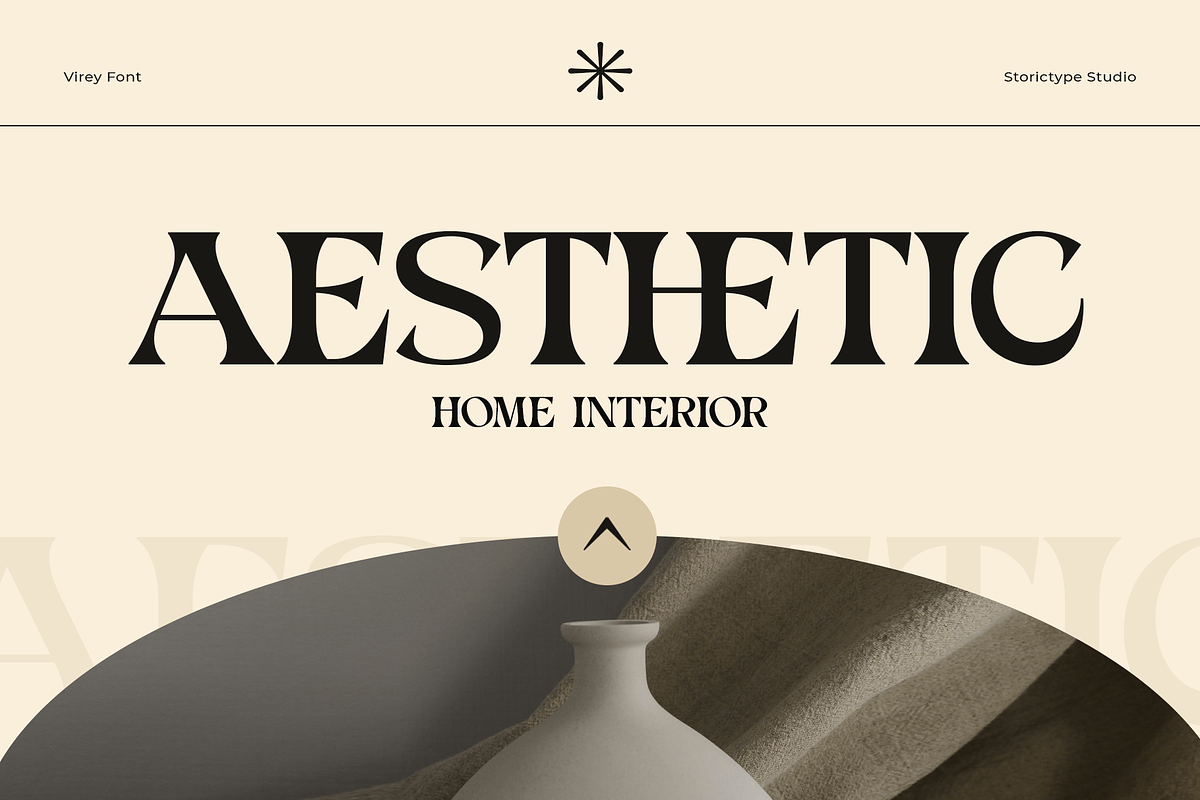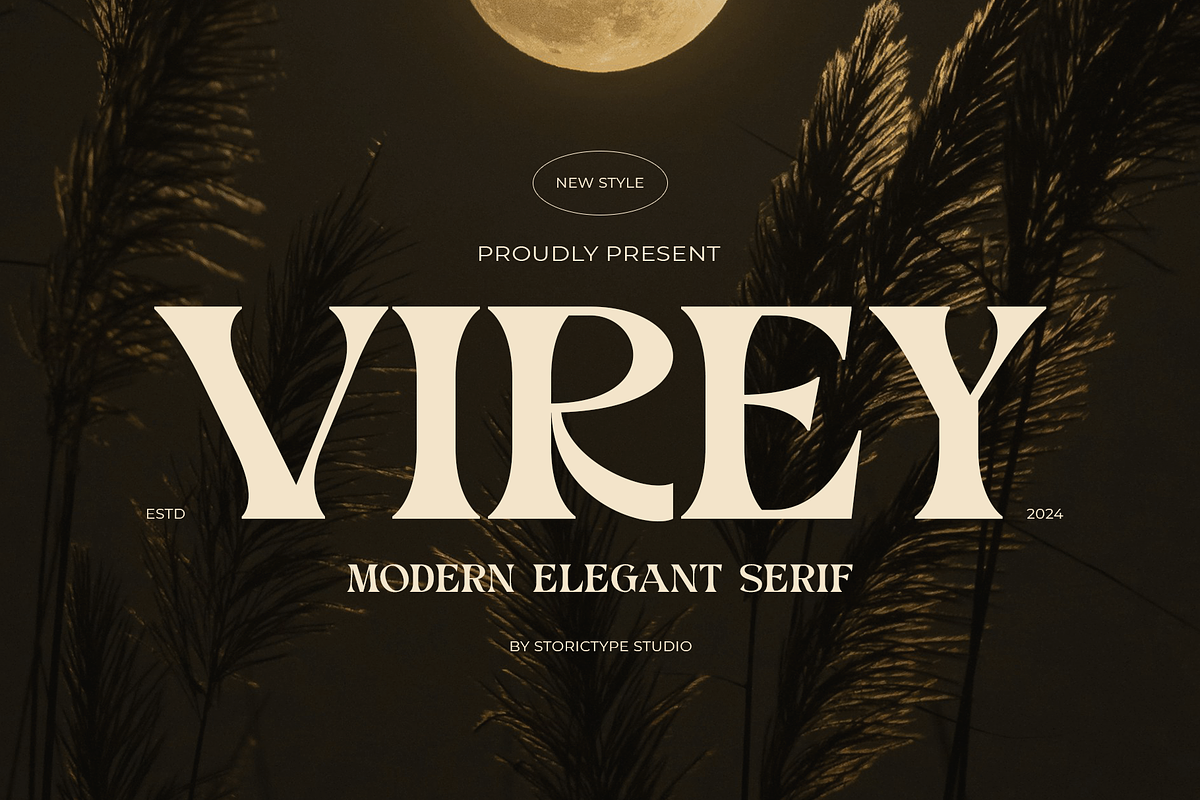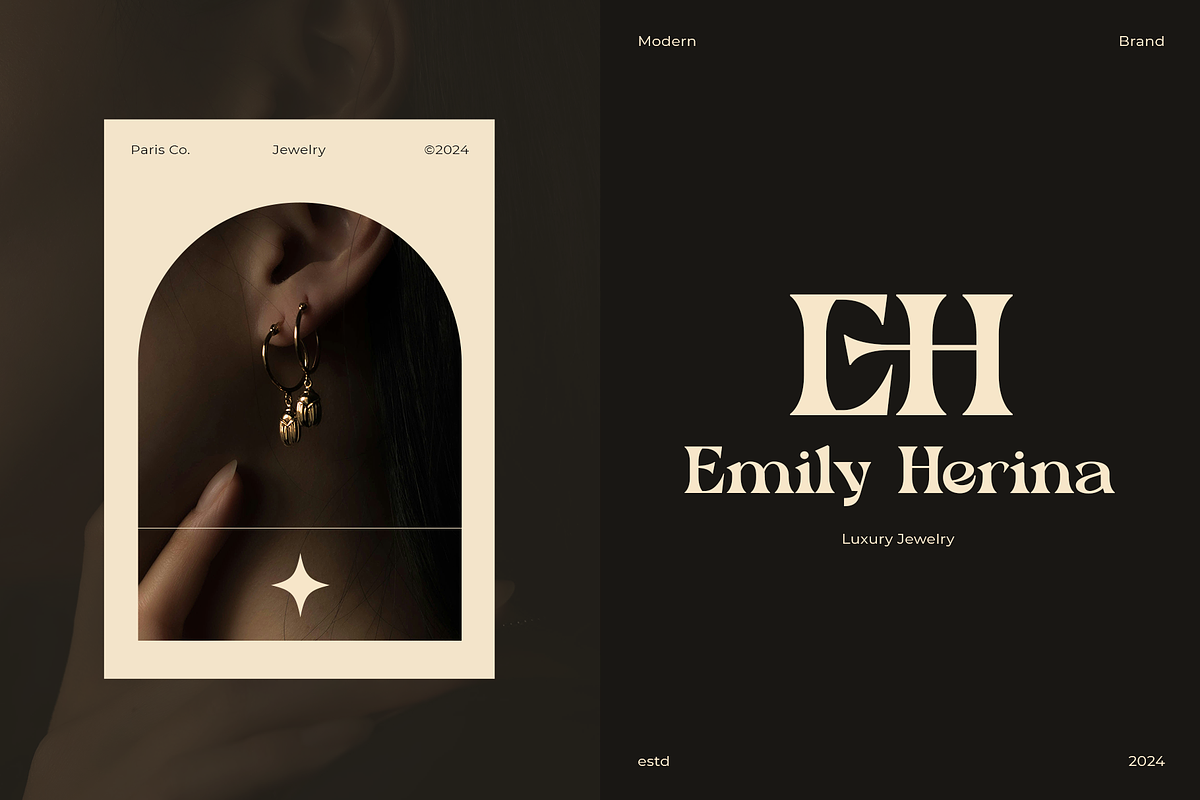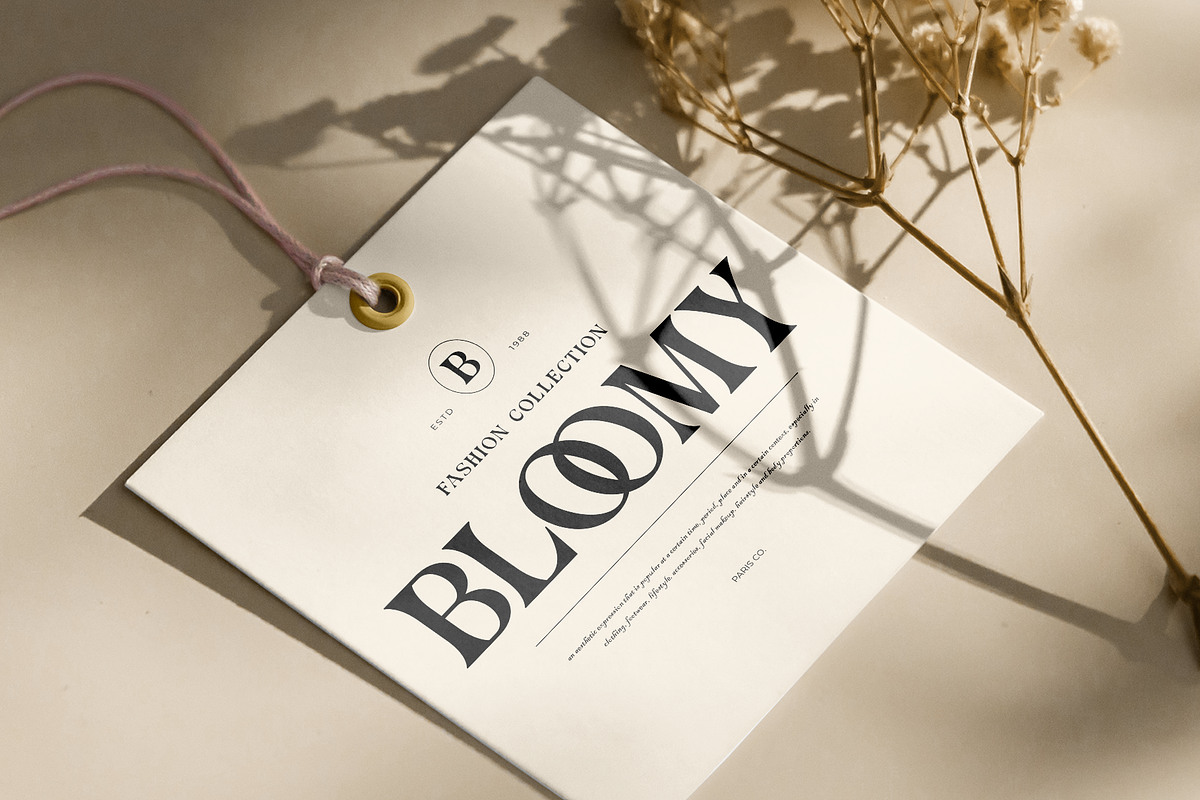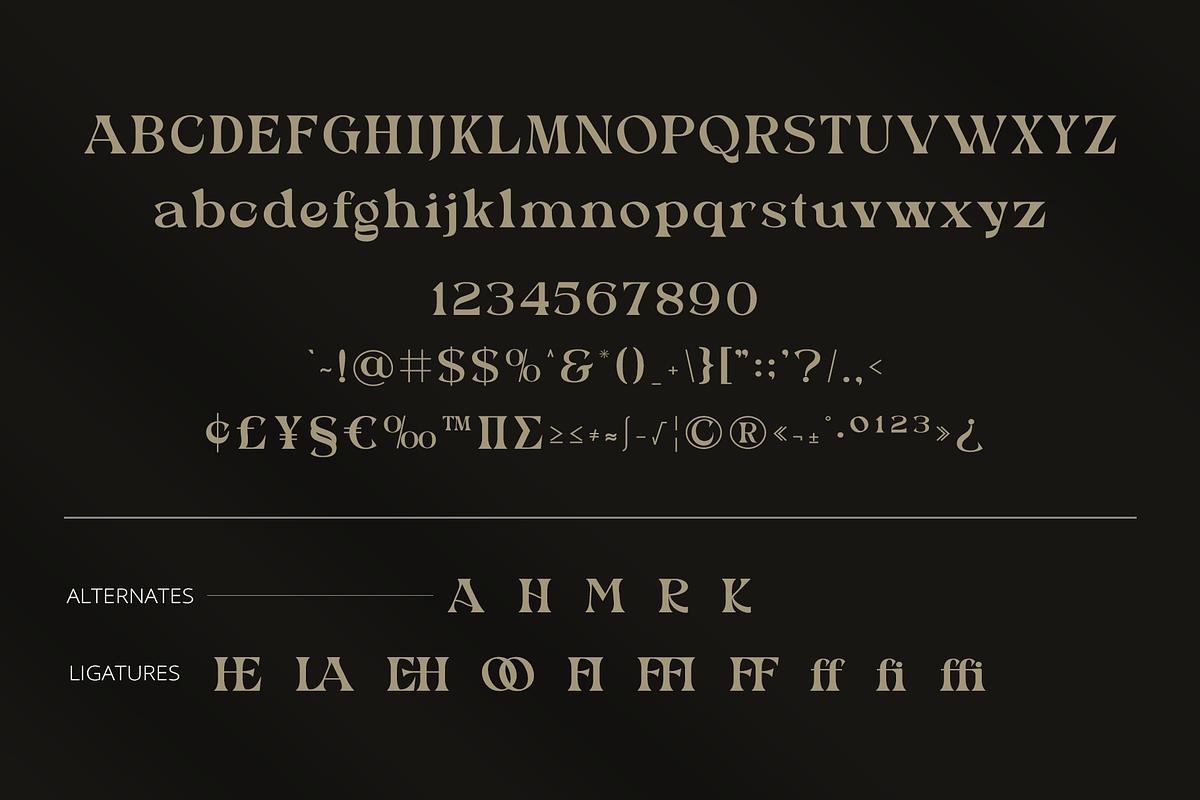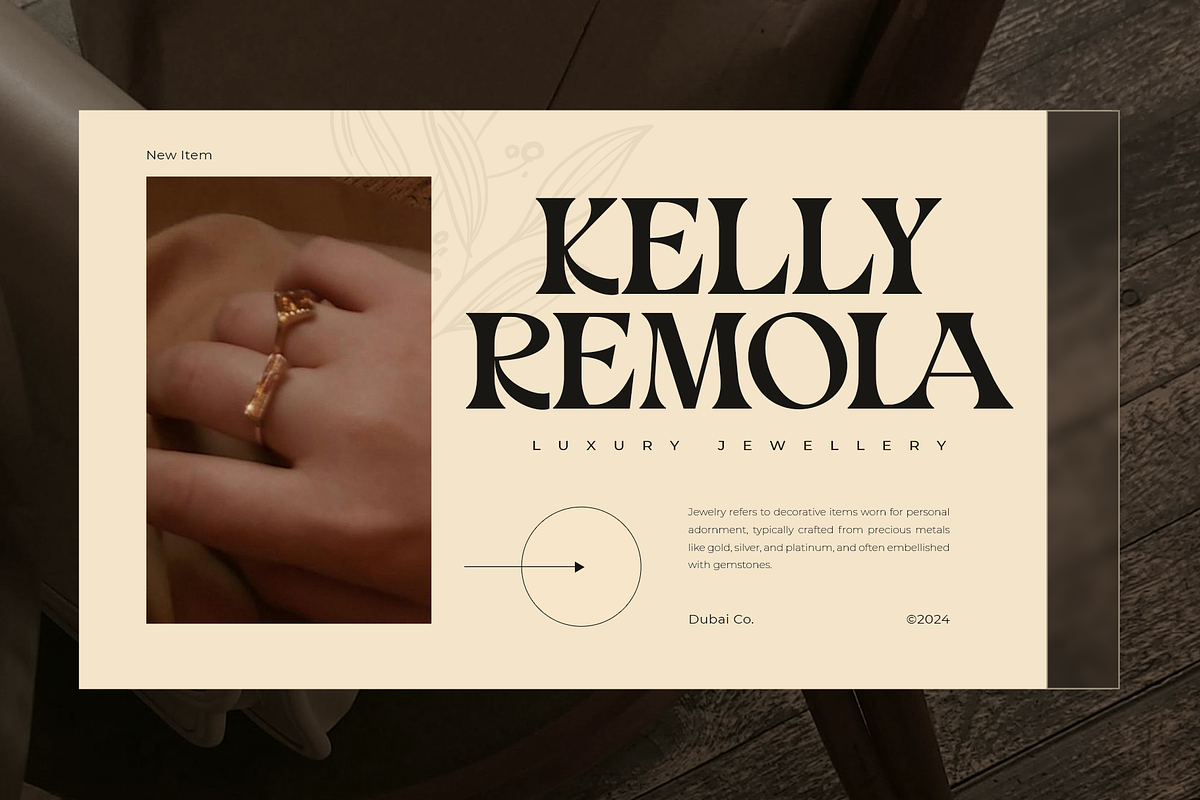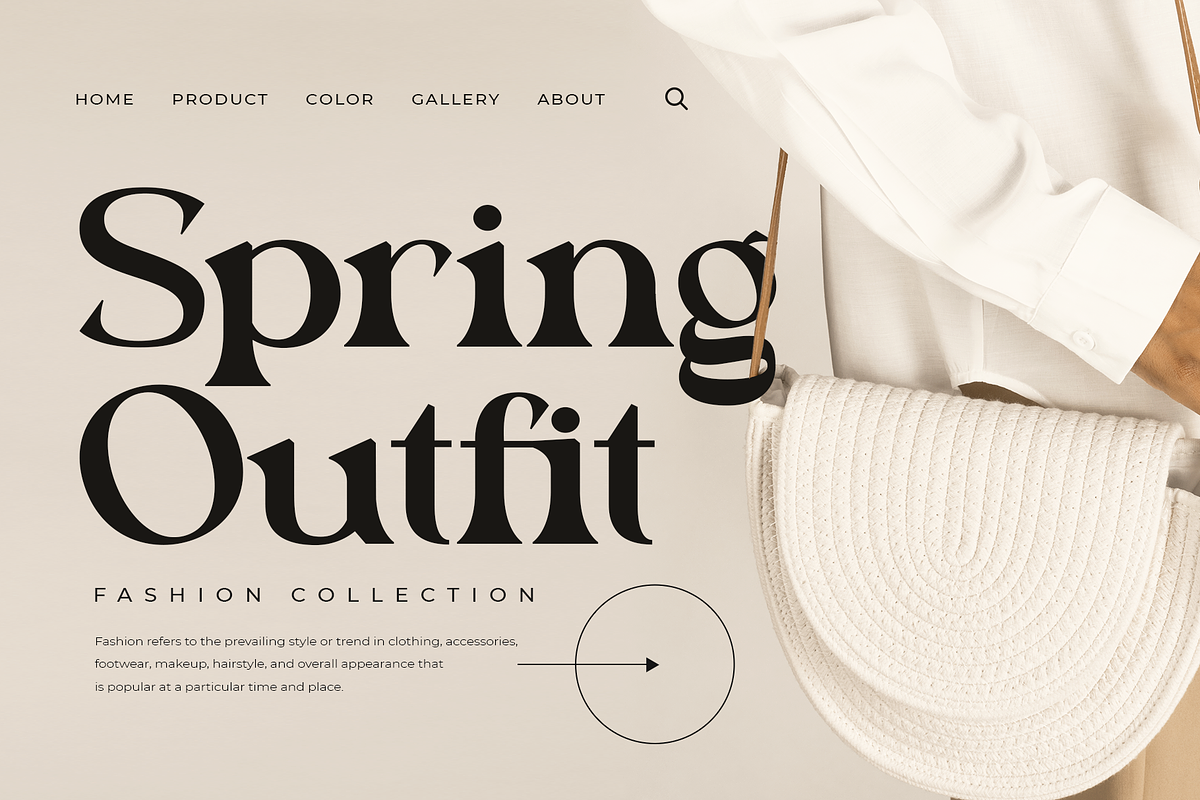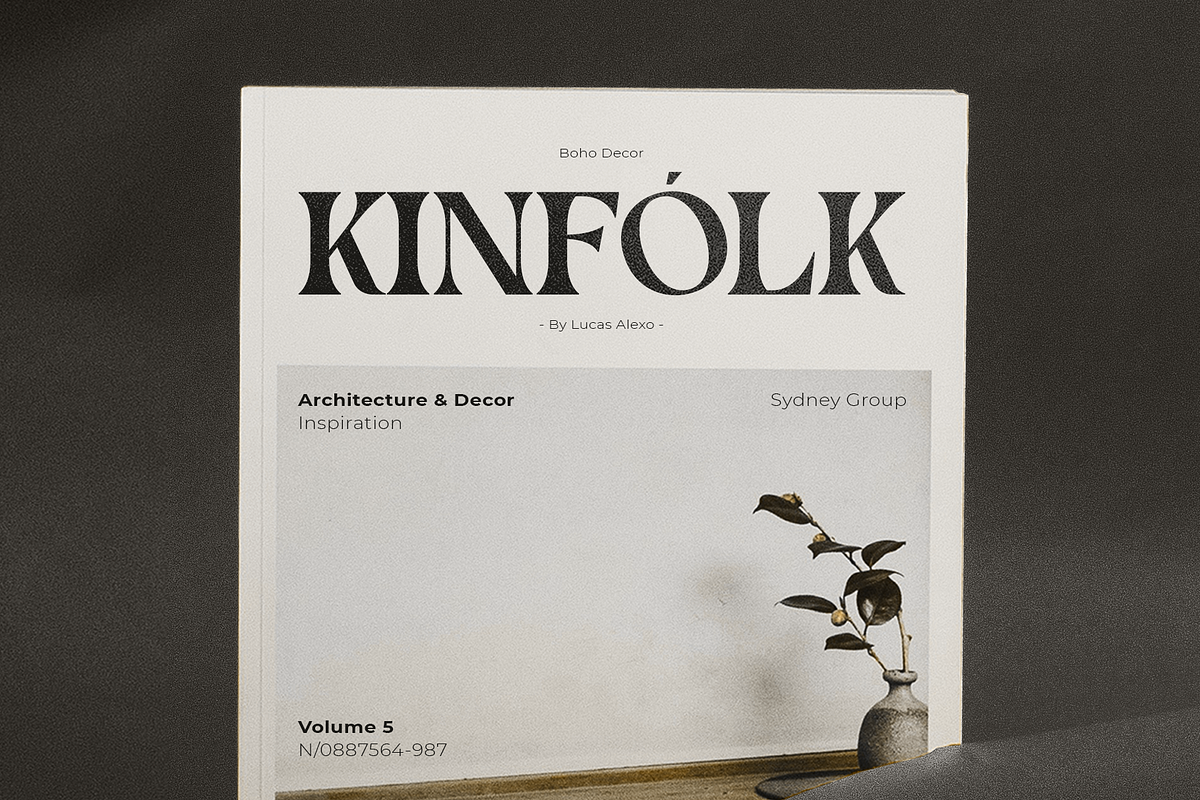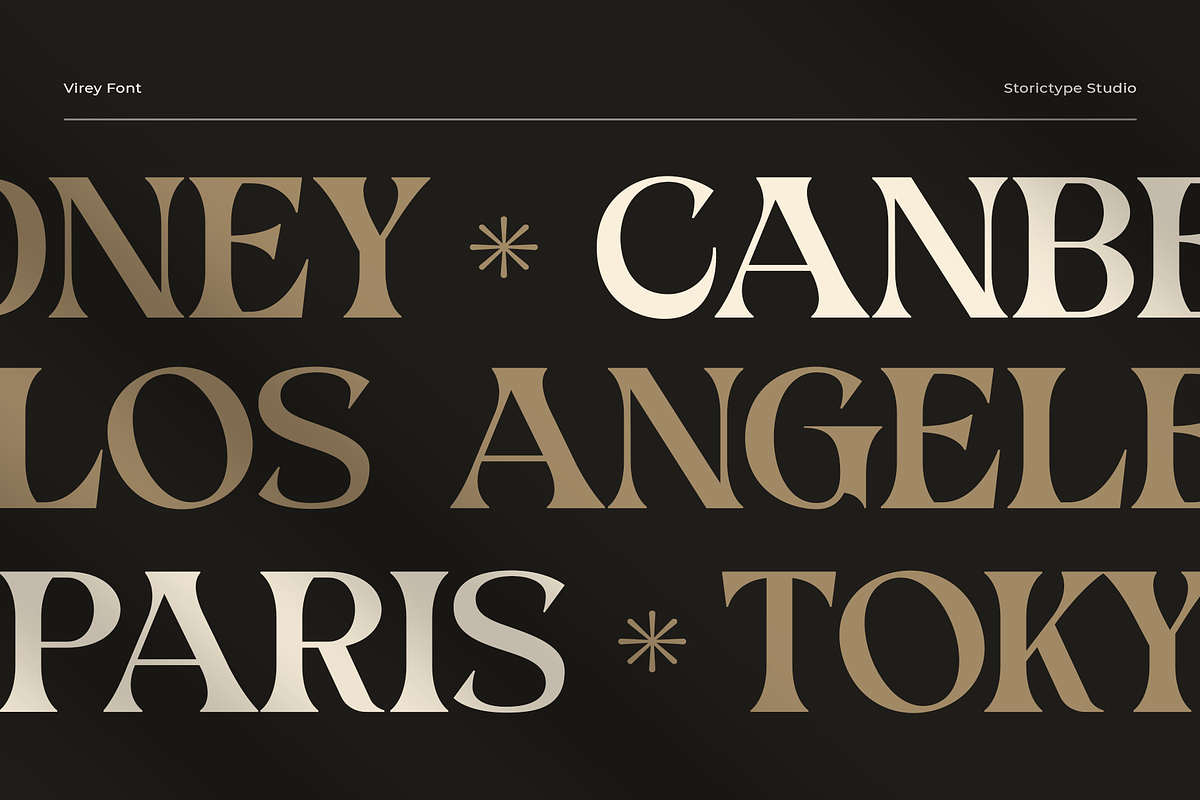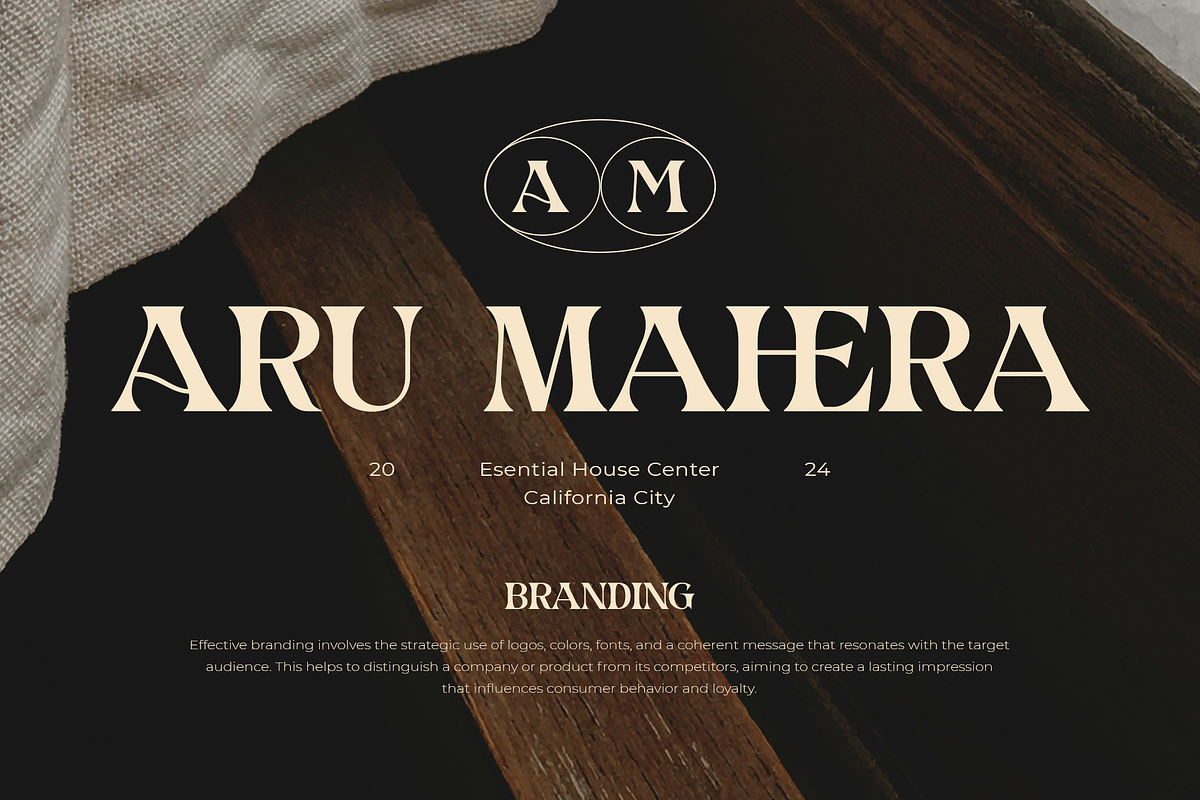
Virey- Modern Elegant Serif
Virey is a Minimalist Modern Elegant serif font with beautiful ligatures, and multilingual support. It's a very versatile font that works great in large and small sizes. Virey is perfect for branding projects, Logo design, Clothing Branding, product packaging, magazine headers, or simply as a stylish text overlay to any background image.
- Stylistic Alternates & Ligatures
- Multiple Languages Supported